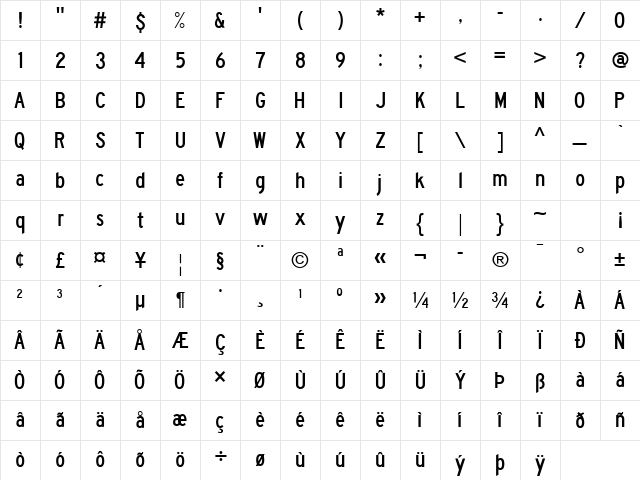
Highway Gothic Narrow Regular
Design Context for Highway Gothic Narrow
Highway Gothic Narrow takes a clean, functional approach - its unadorned letterforms prioritise legibility and work reliably across screen and print environments. Its narrow stance lets it pack a punch even in space-constrained designs.
Font Pairing: Works well alongside a characterful serif or display font that can carry the expressive load while Highway Gothic Narrow handles the functional copy.
Pro Tip: Use Highway Gothic Narrow tightly set in headlines and banners - its condensed proportions make it ideal for maximum impact in minimum horizontal space.